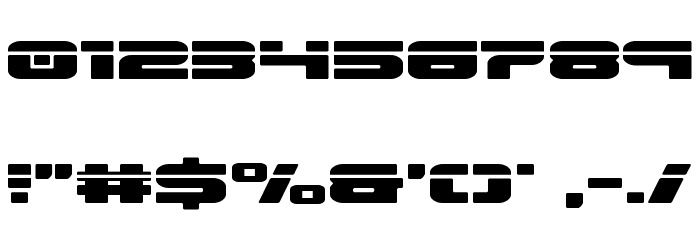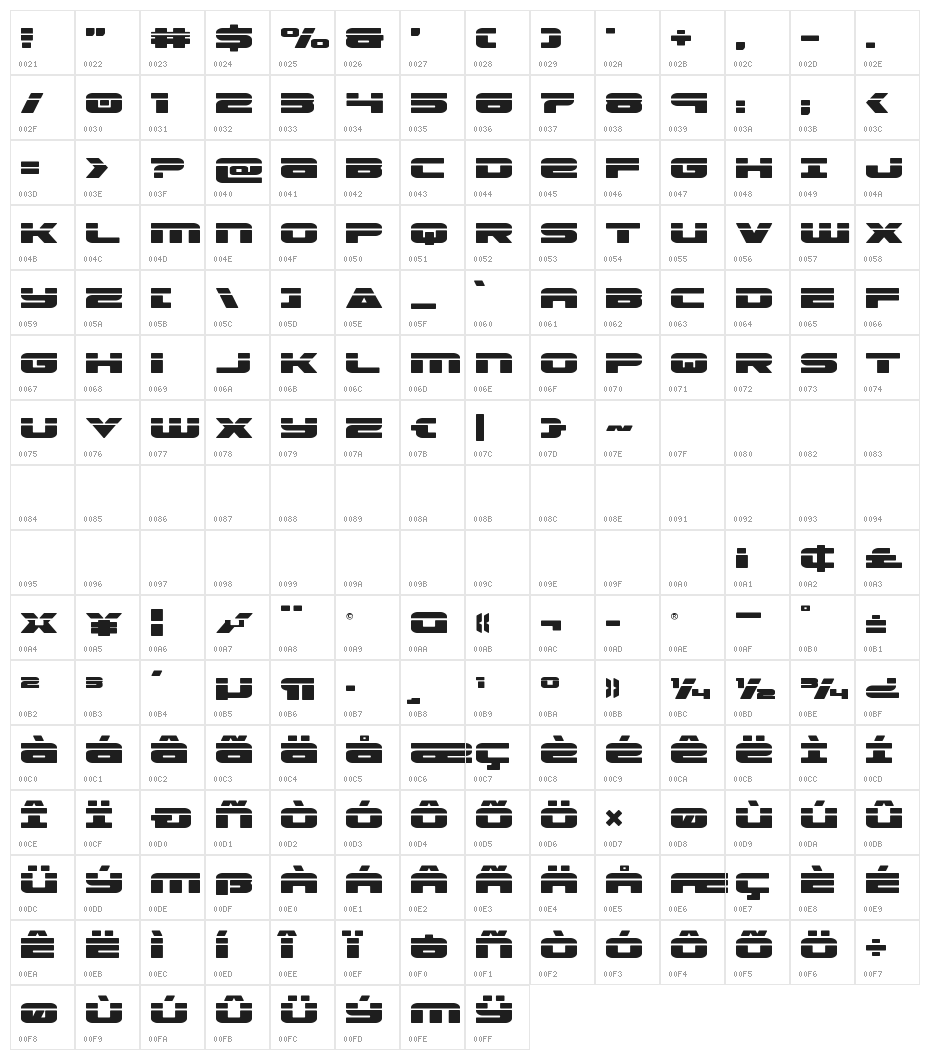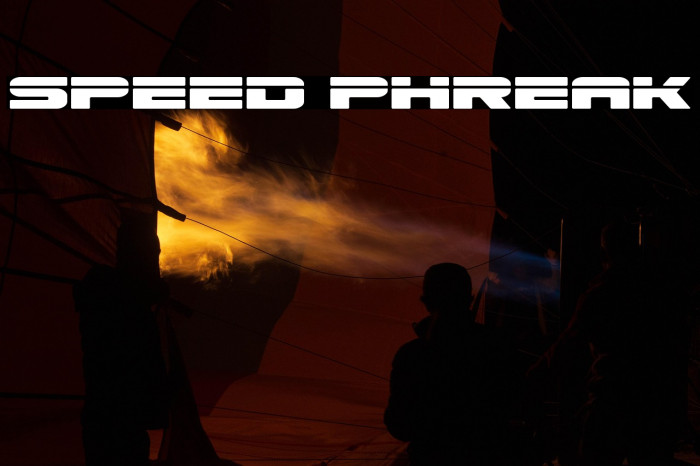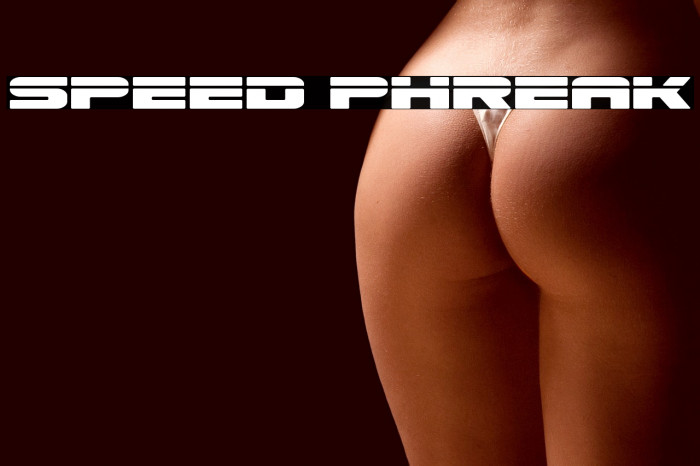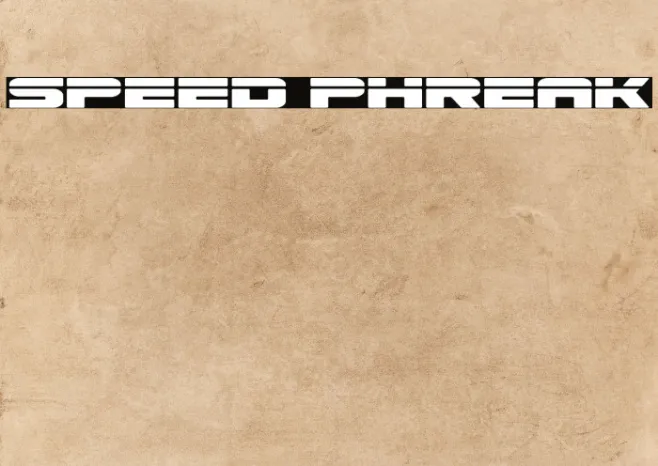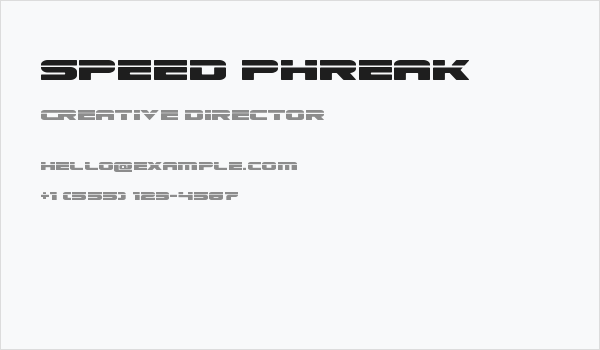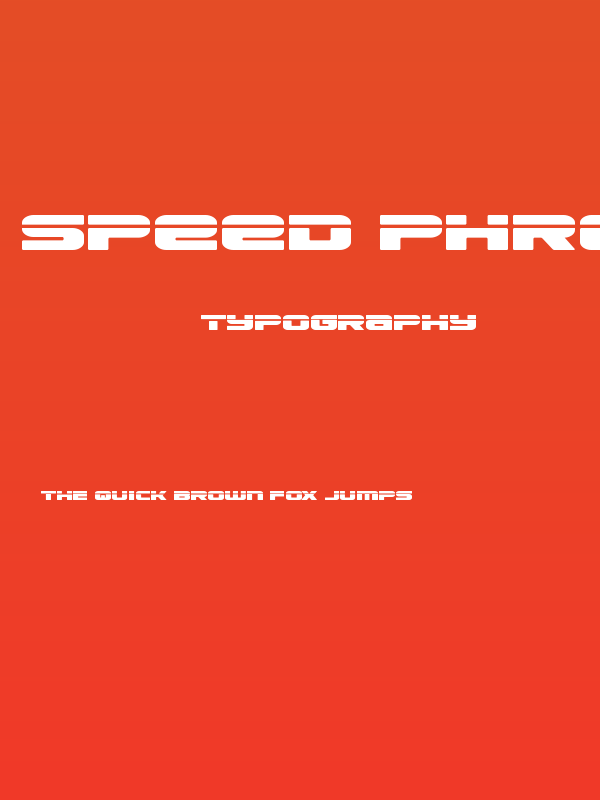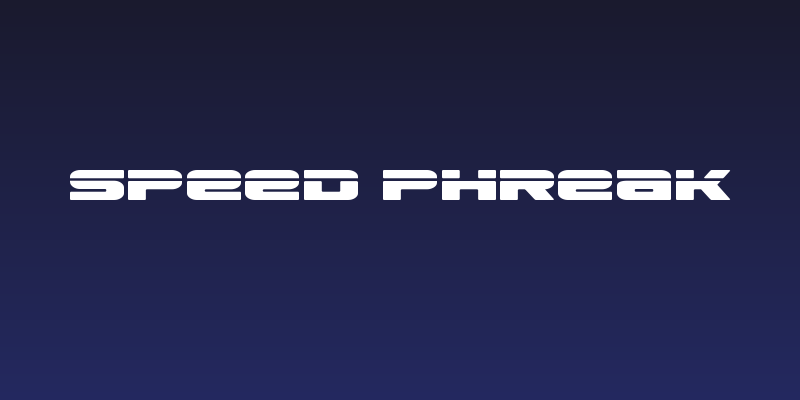
Speed Phreak Font
Speed Phreak Description
This font features a bold and futuristic design with a distinctly geometric and angular style. The characters are constructed with uniform thickness, creating a strong and impactful appearance. The design incorporates sharp edges and straight lines, giving it a modern and tech-inspired look. The uppercase and lowercase letters maintain a consistent style, while the numerals and special characters complement the overall aesthetic. This font is ideal for projects that require a contemporary and bold statement, such as technology branding, sports team logos, or video game titles.
| Use Case | Logos, Headlines |
| Proposed Projects | Ideal for technology branding, sports logos, video game titles, and modern advertising. |